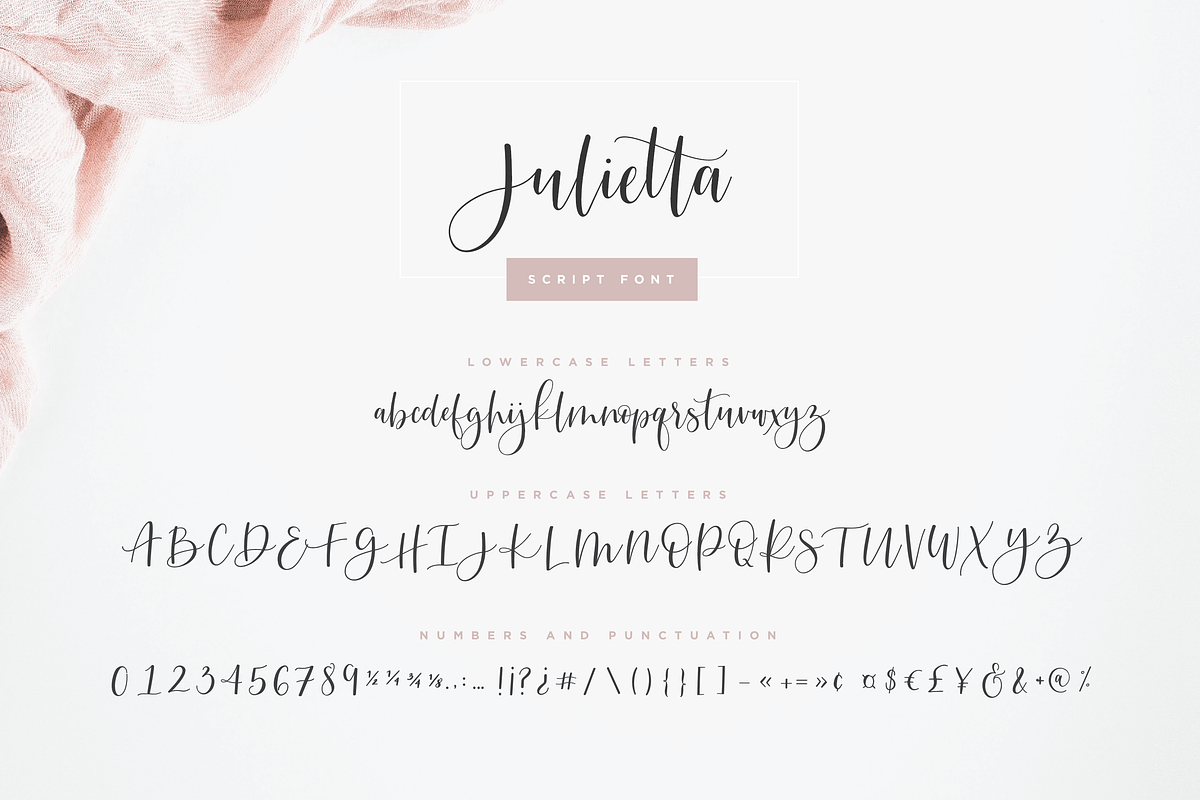
Julietta Script Font
Introducing the lovely new Julietta Script Font!
Julietta was built with OpenType features and includes beginning and ending swashes, numbers, punctuation, alternates, ligatures and it also supports other languages :)
Julietta Script Font by The Styled Script fits naturally into Branding, posters, packaging, typography.